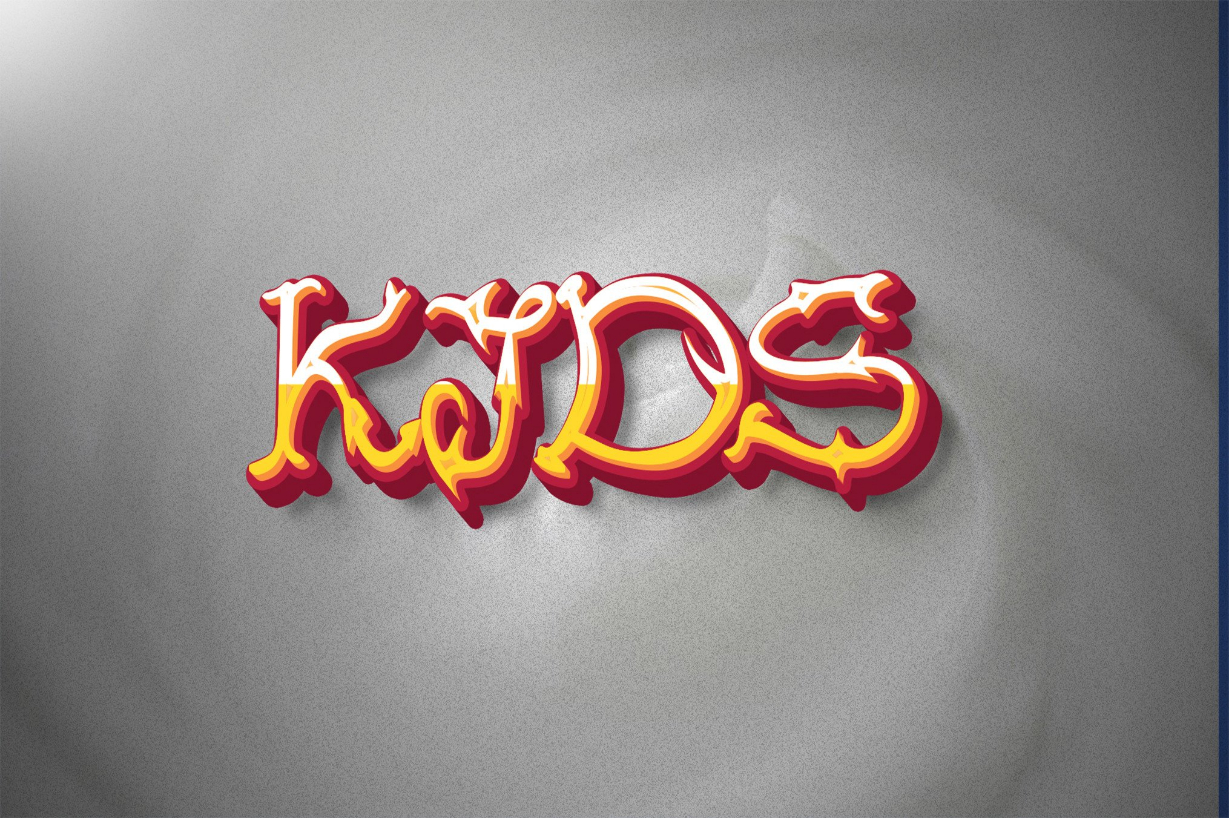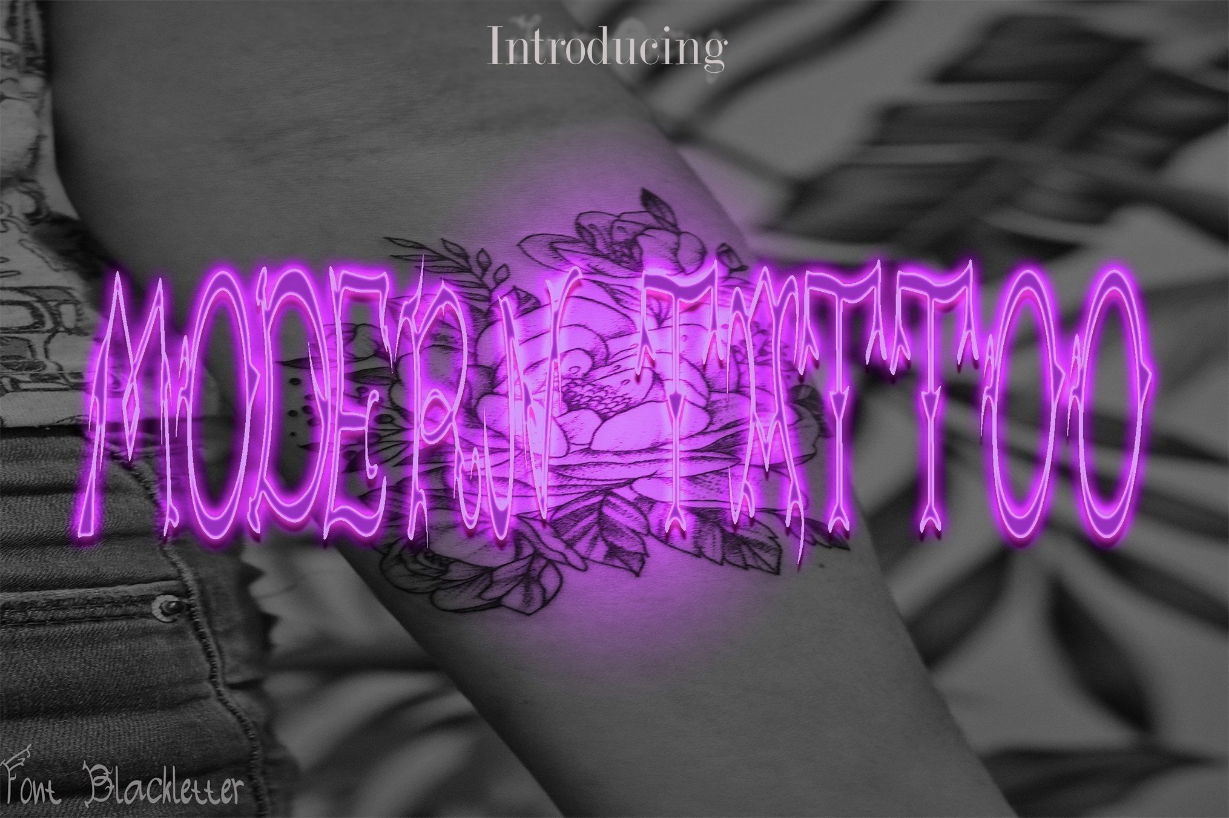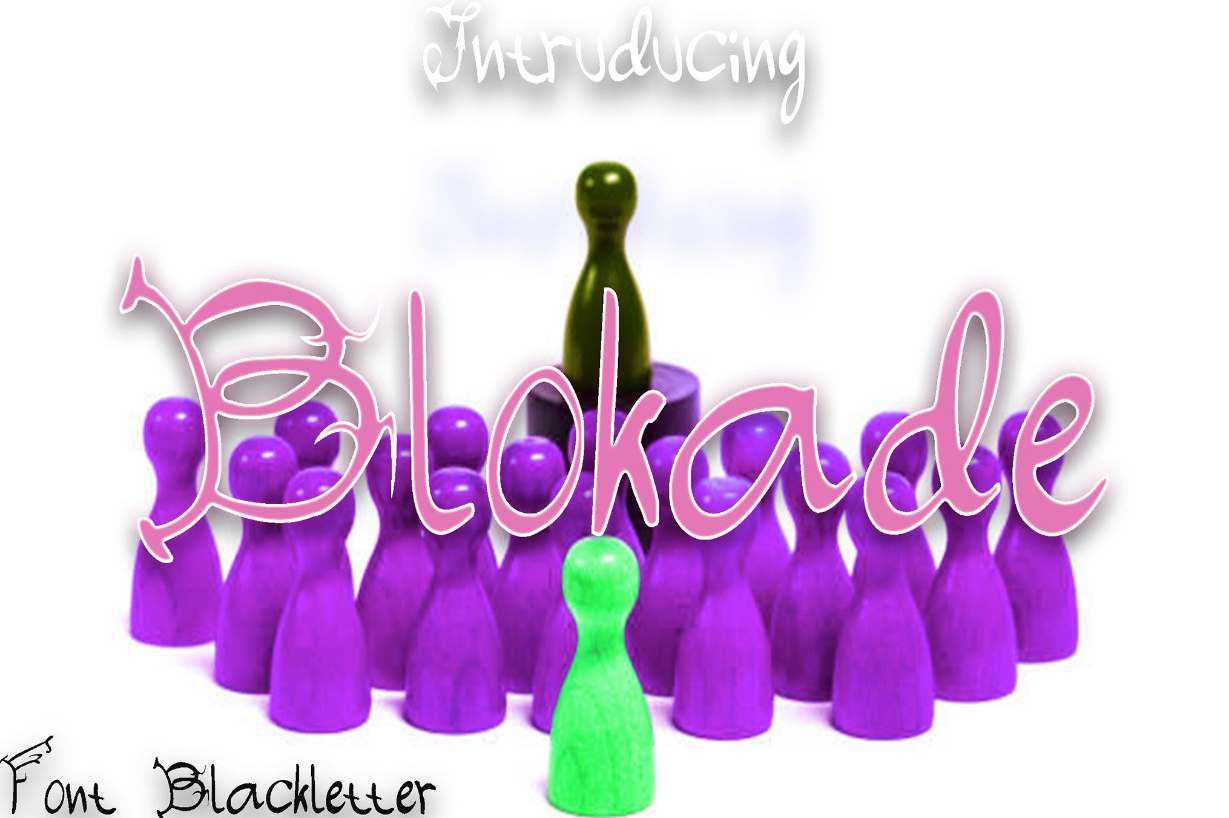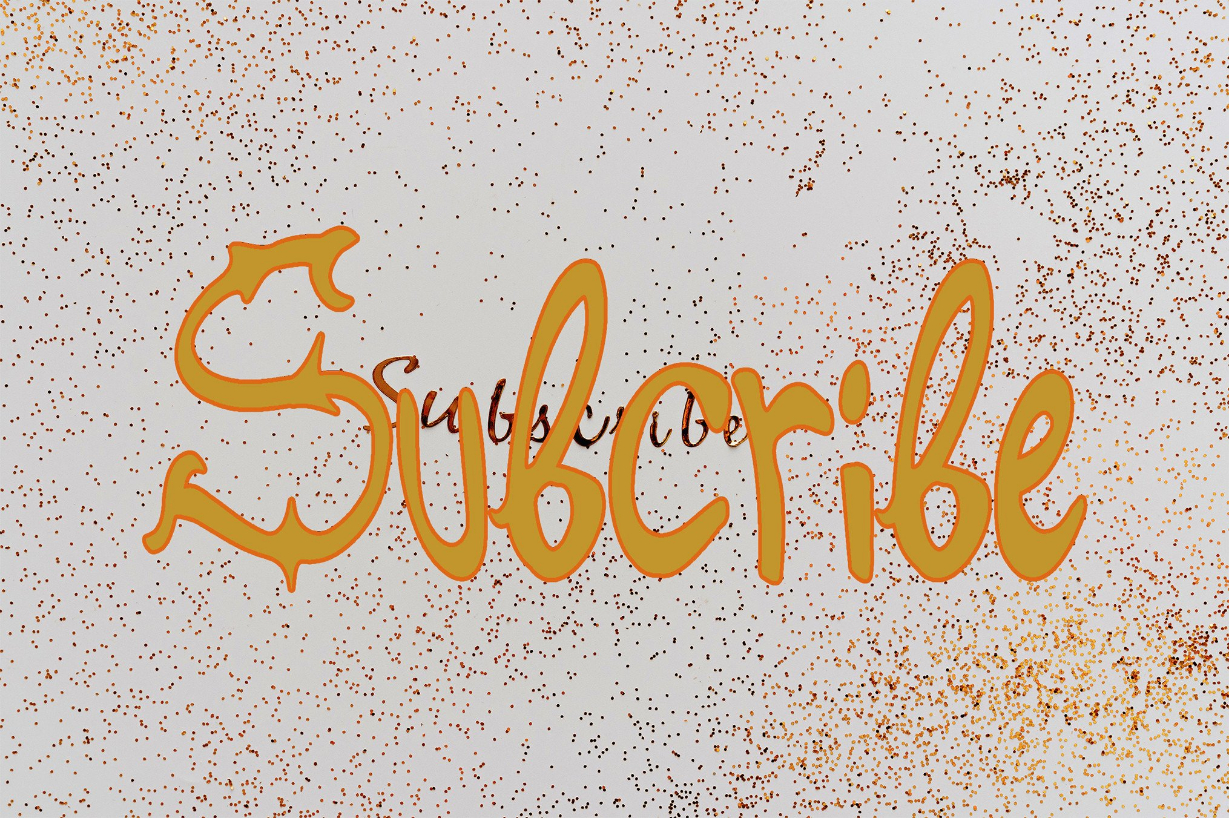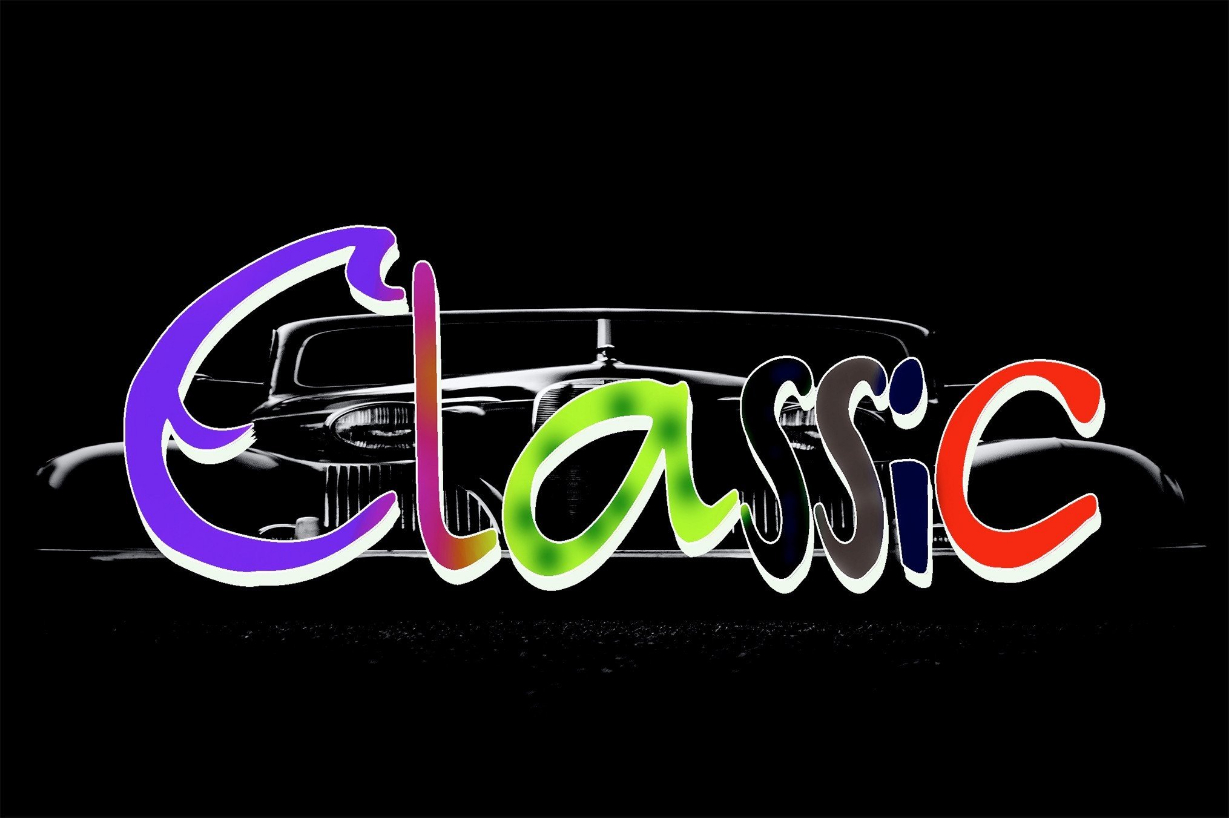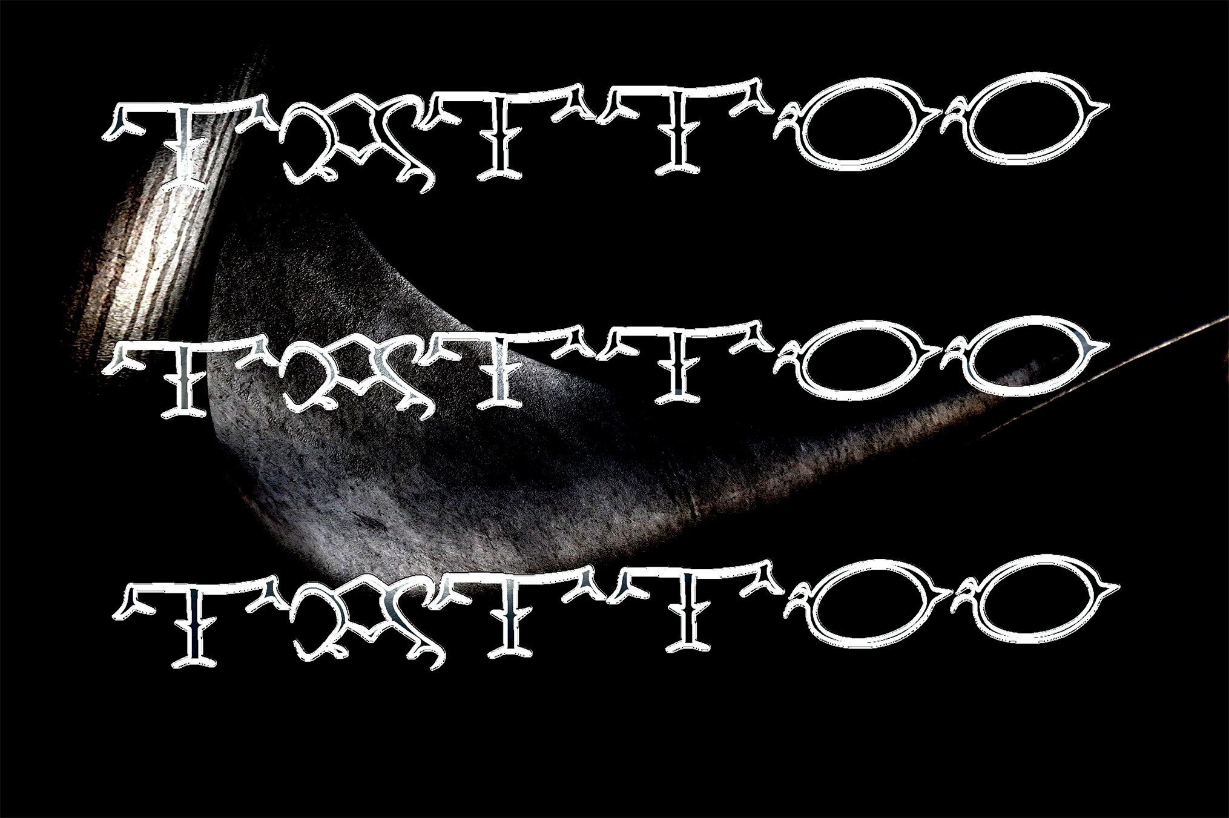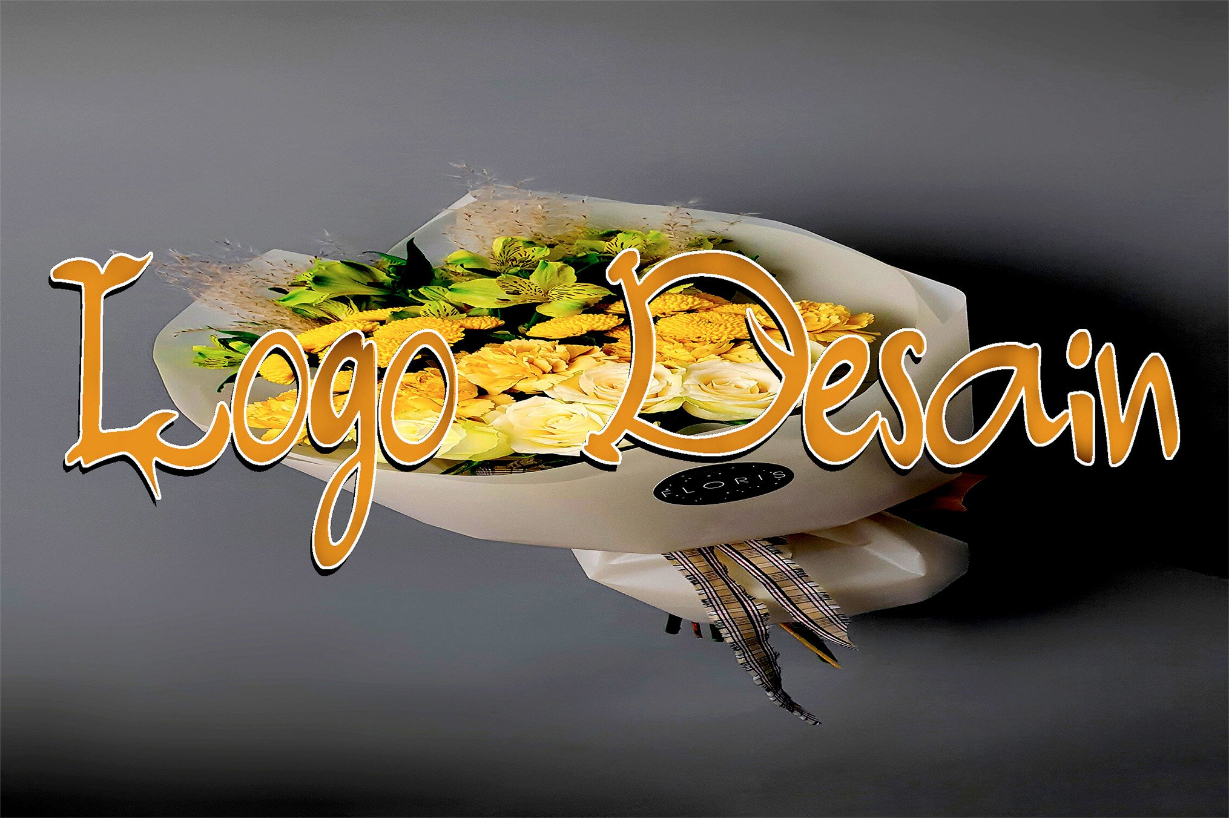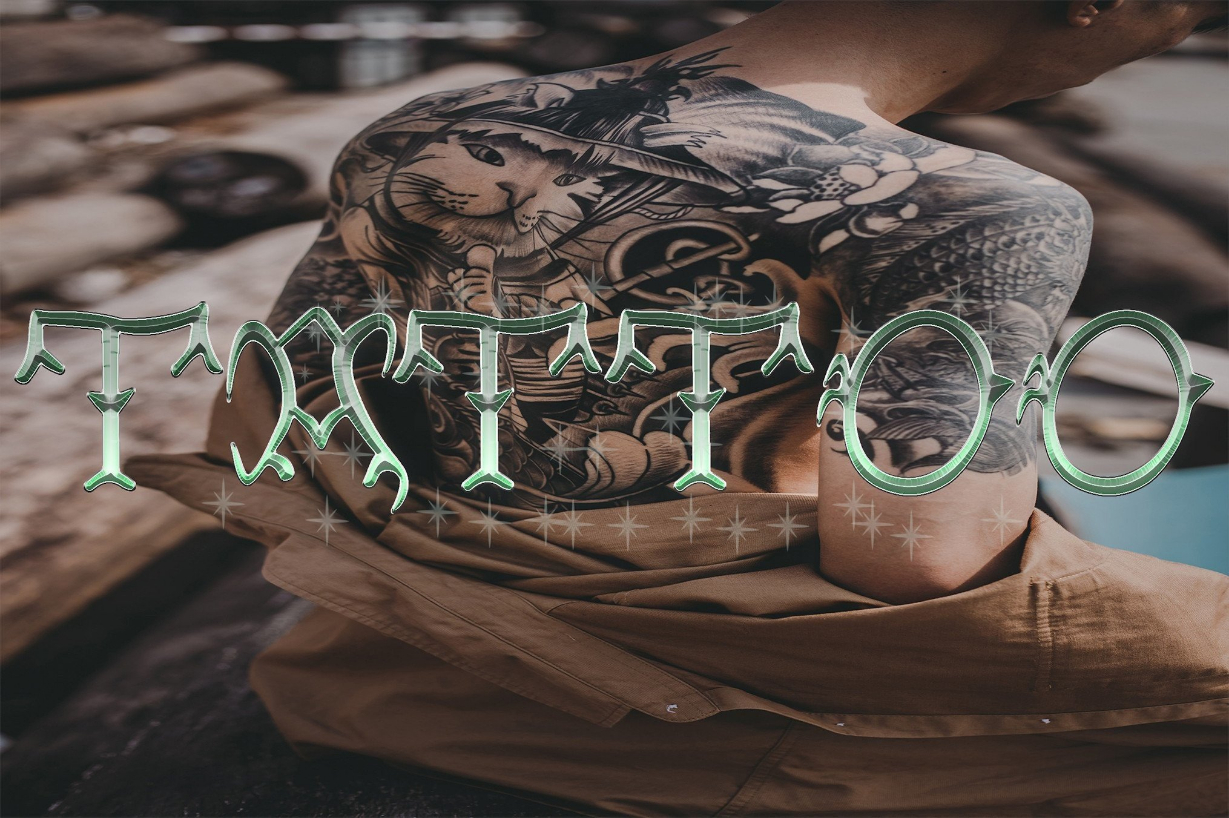
Modern Tattoo Font
About Modern Tattoo Font
Modern Tattoo is a fun and cool blackletter font. Its distinct character makes this font a unique addition to any creation. Fall in love with its incredibly versatile style and use it to create spectacular designs!